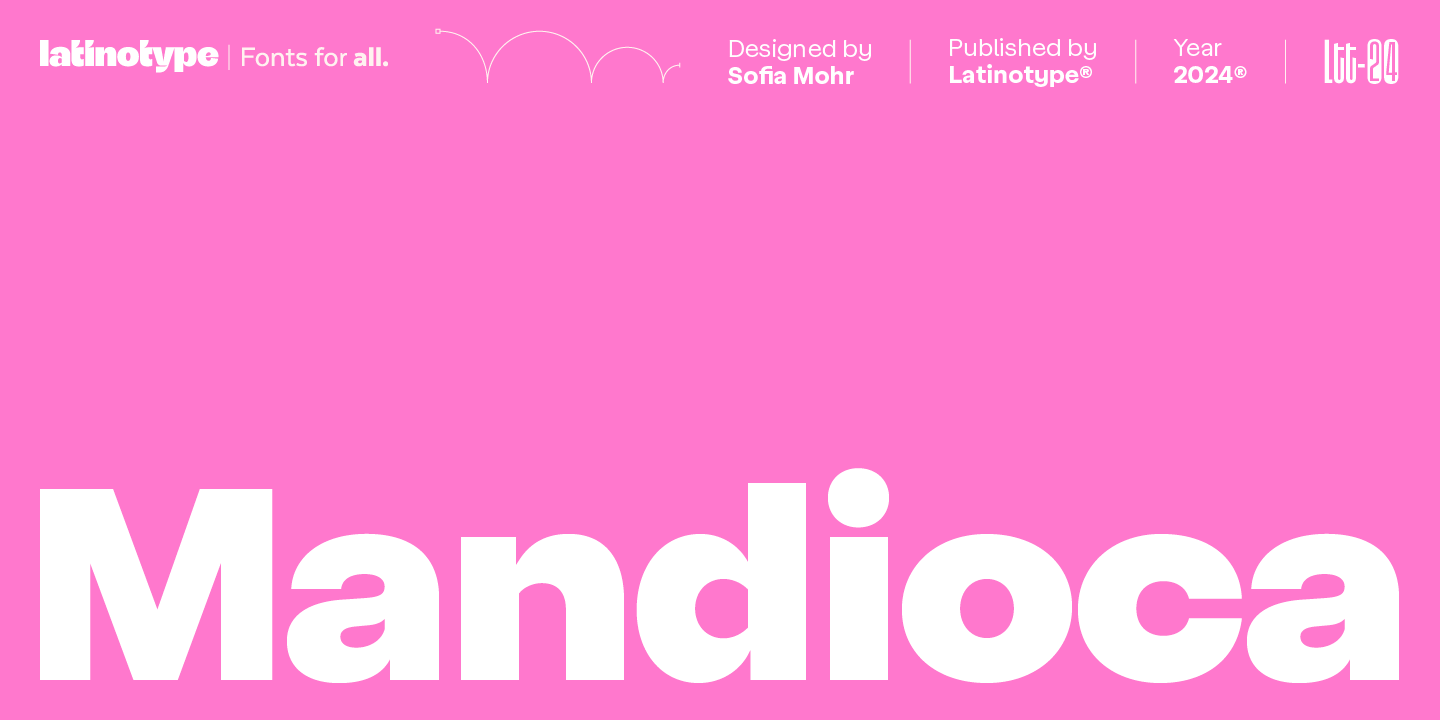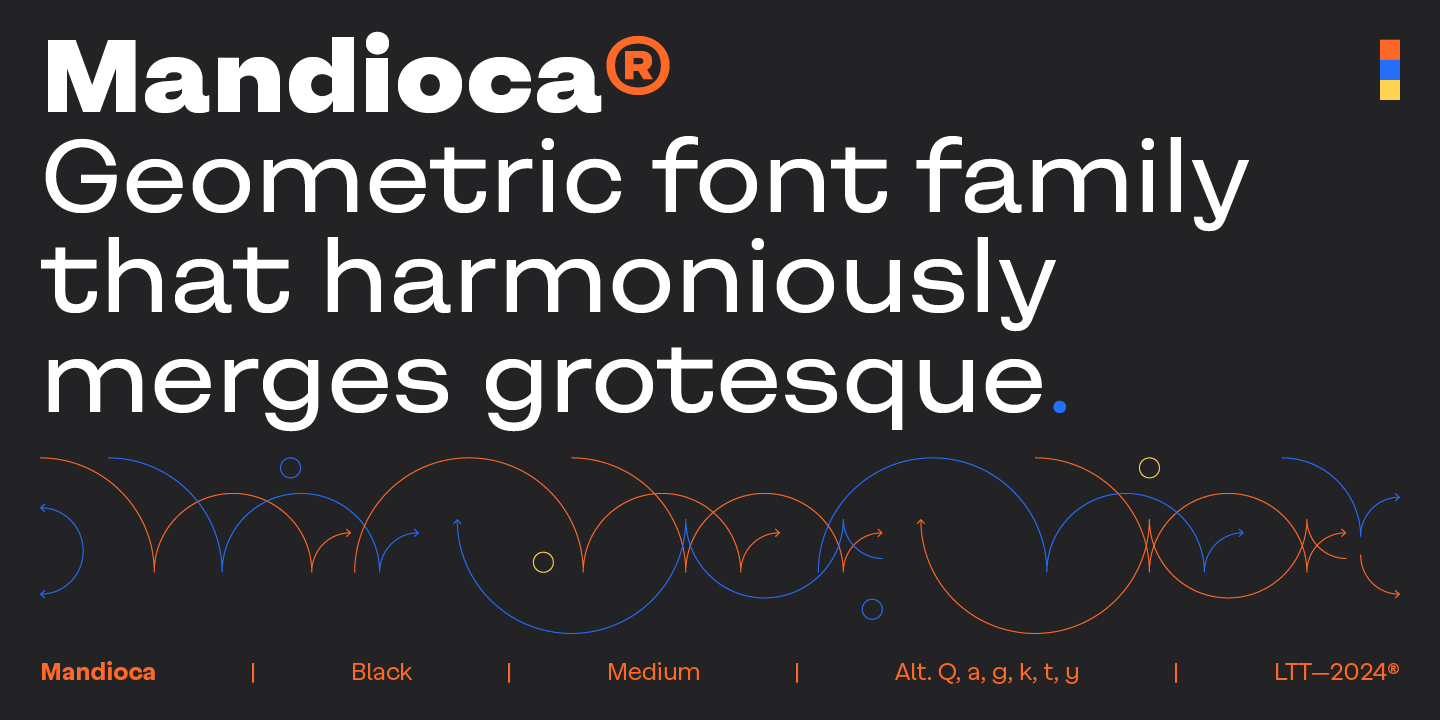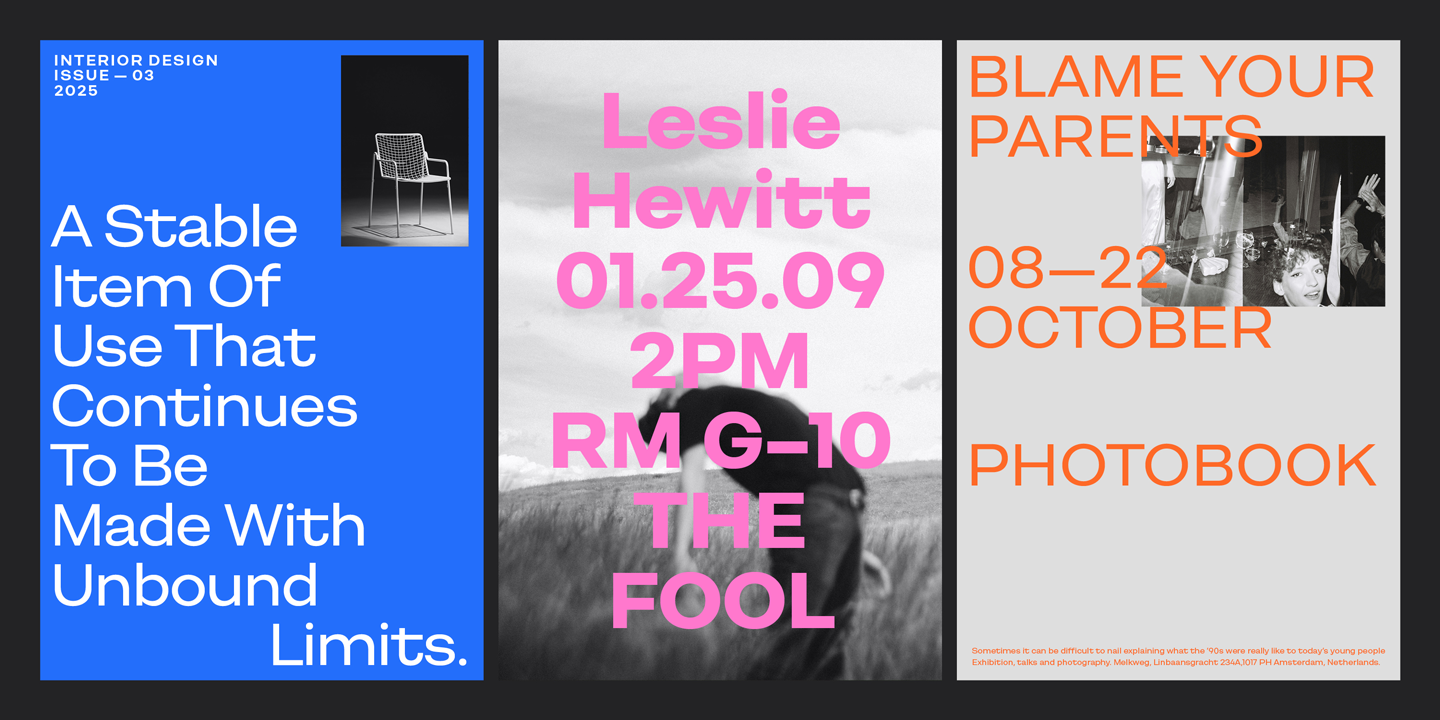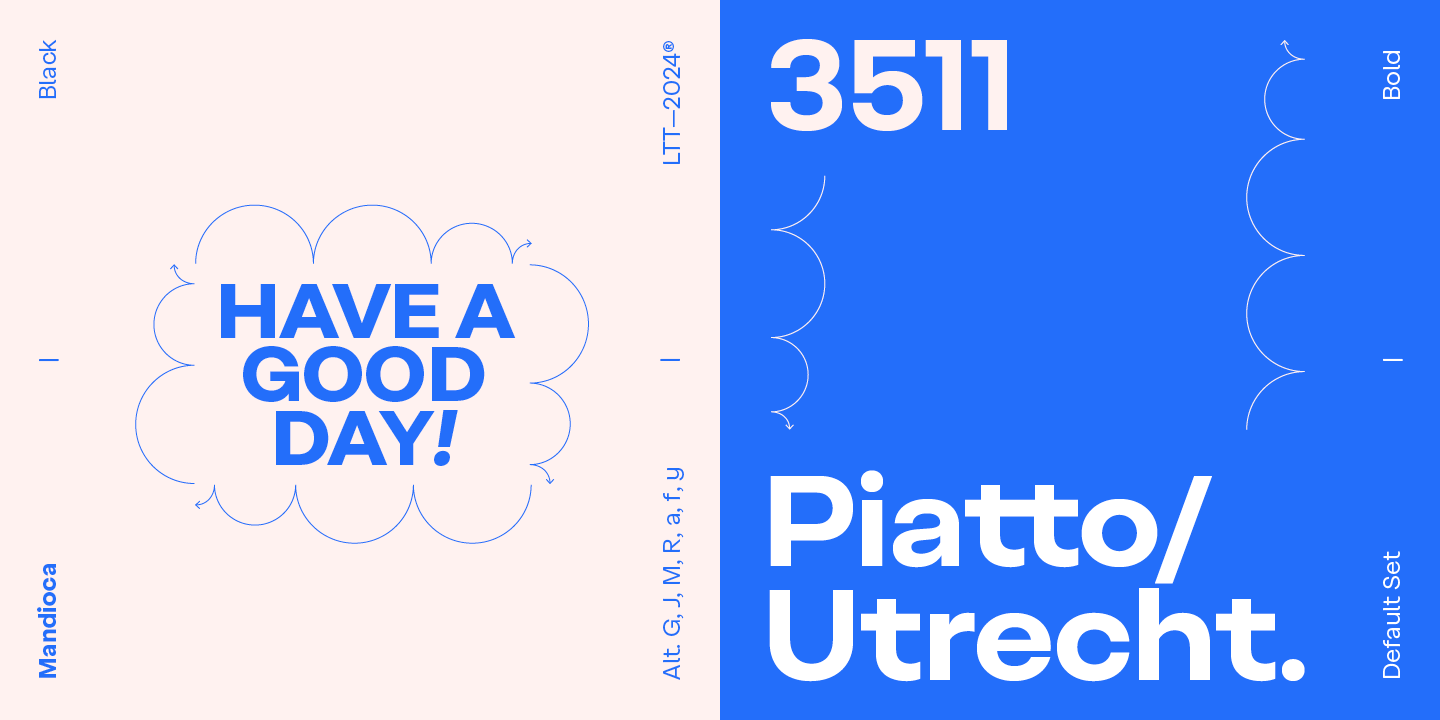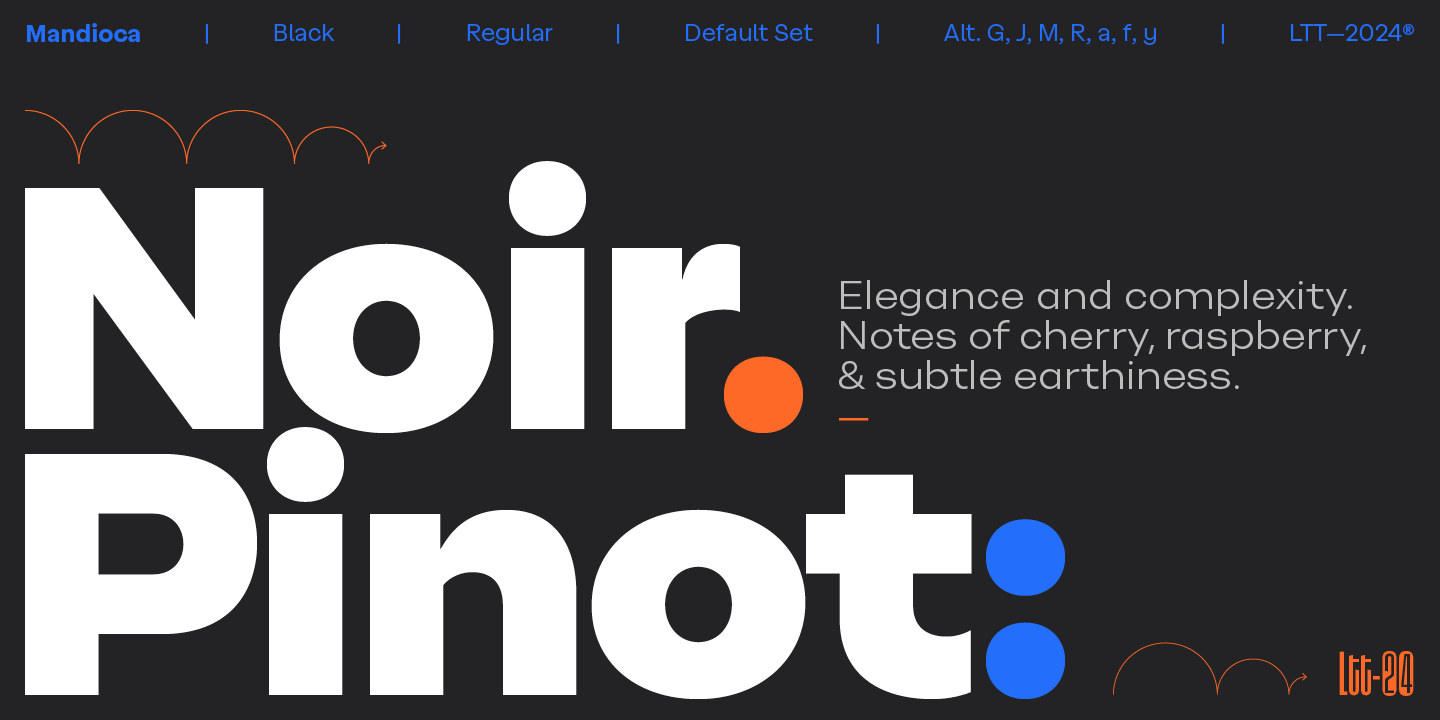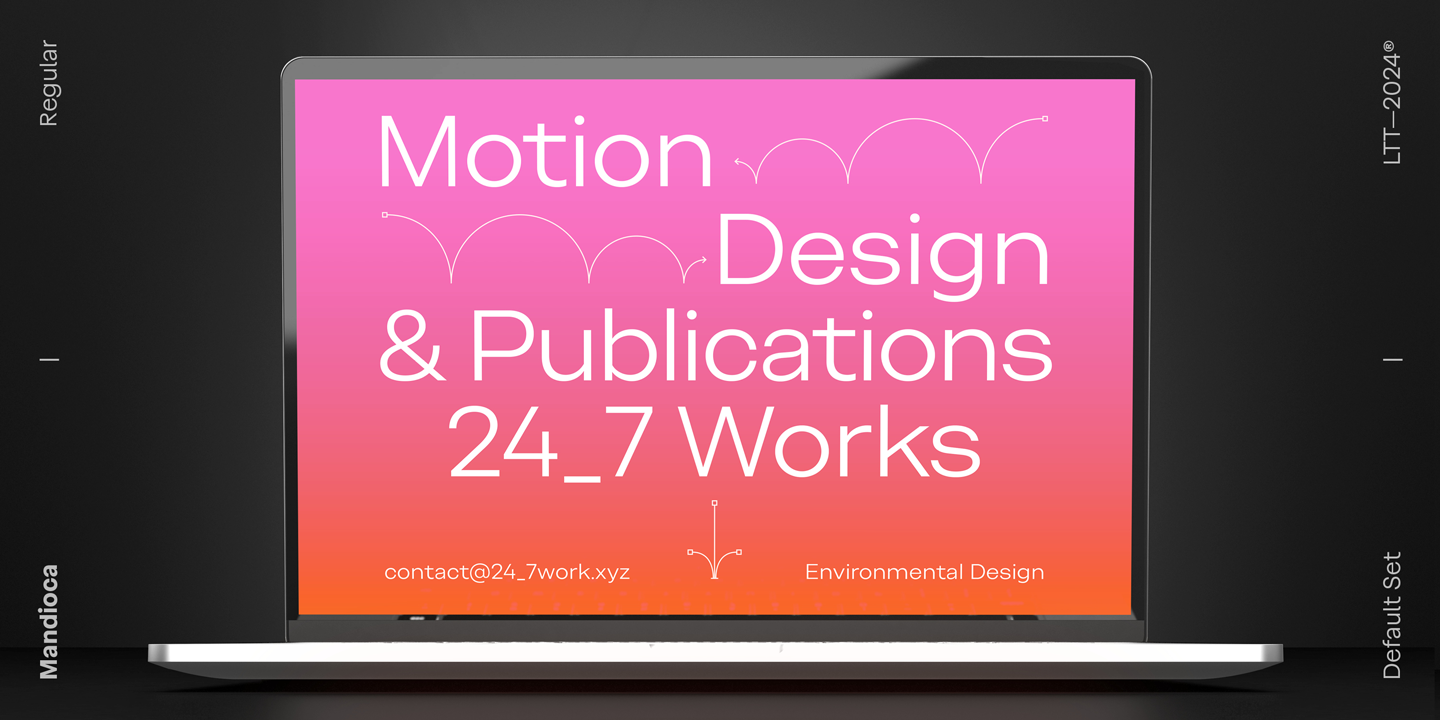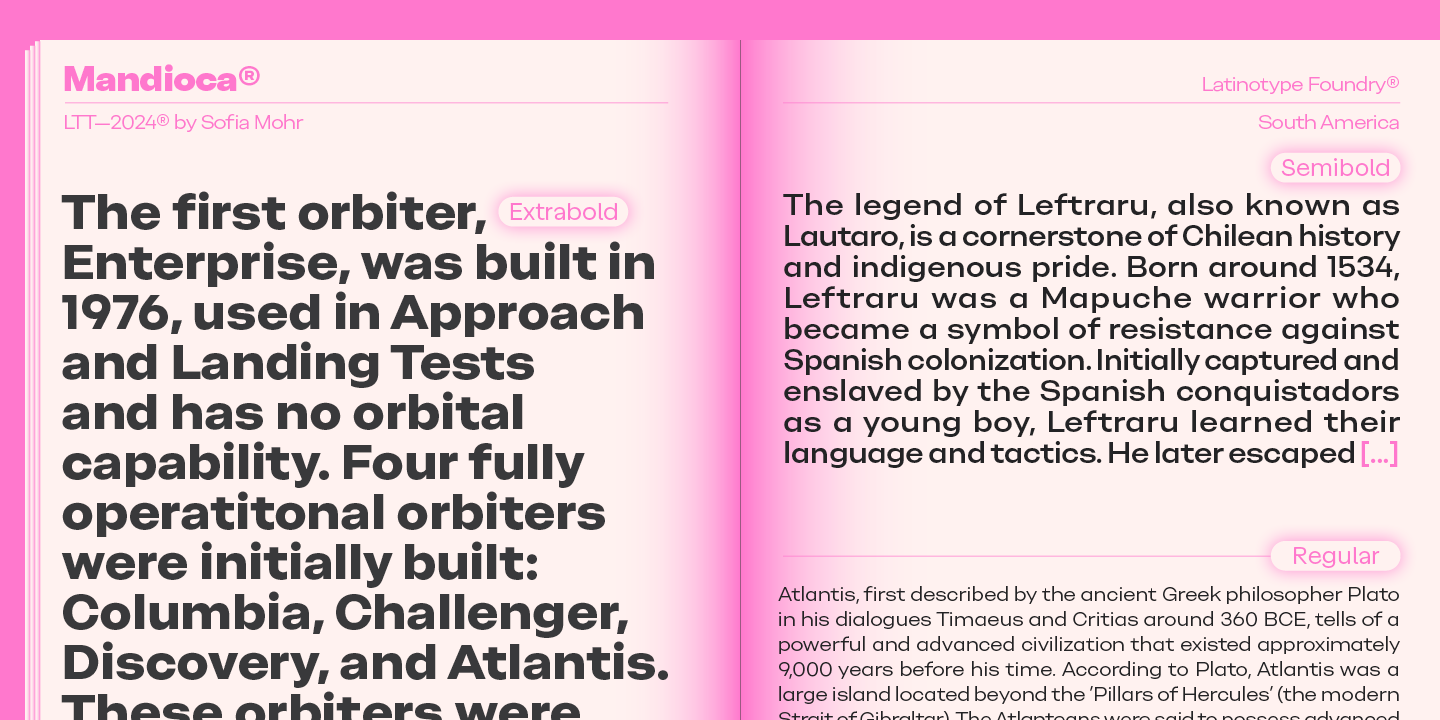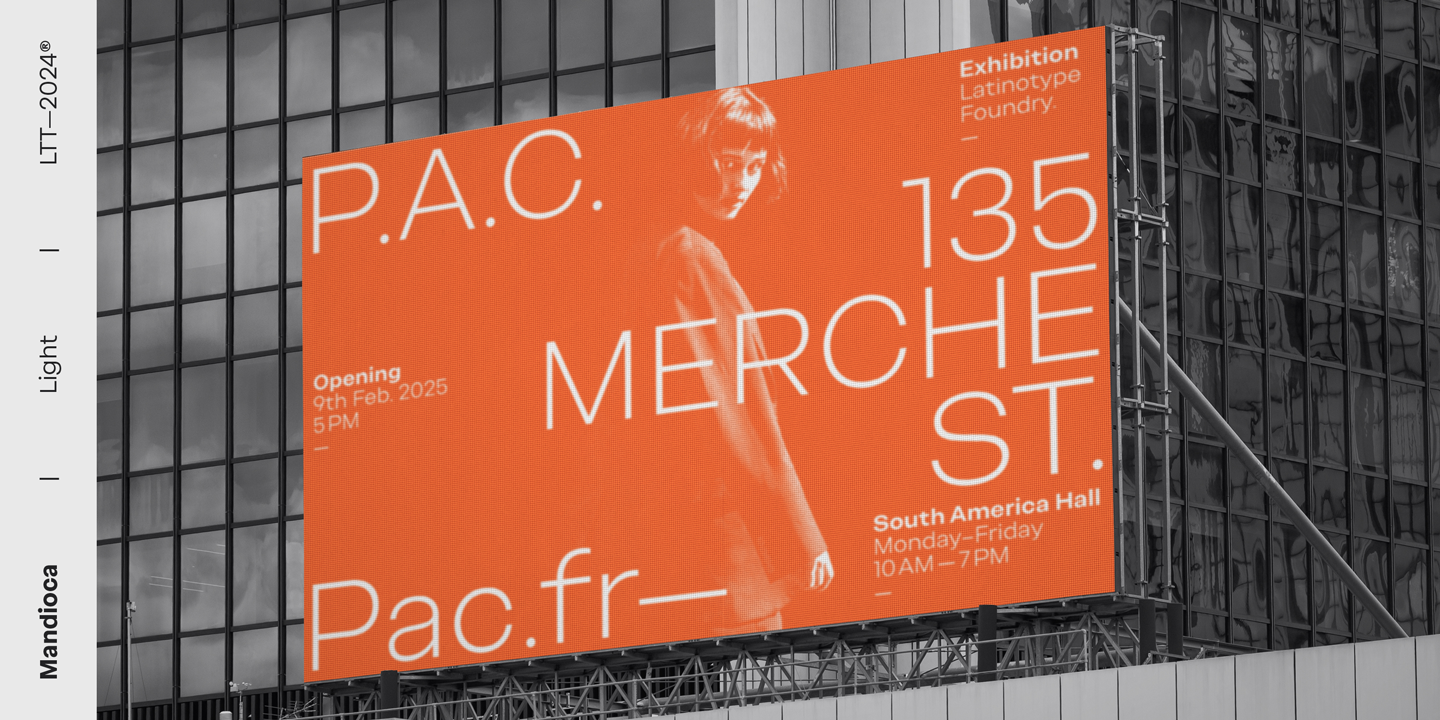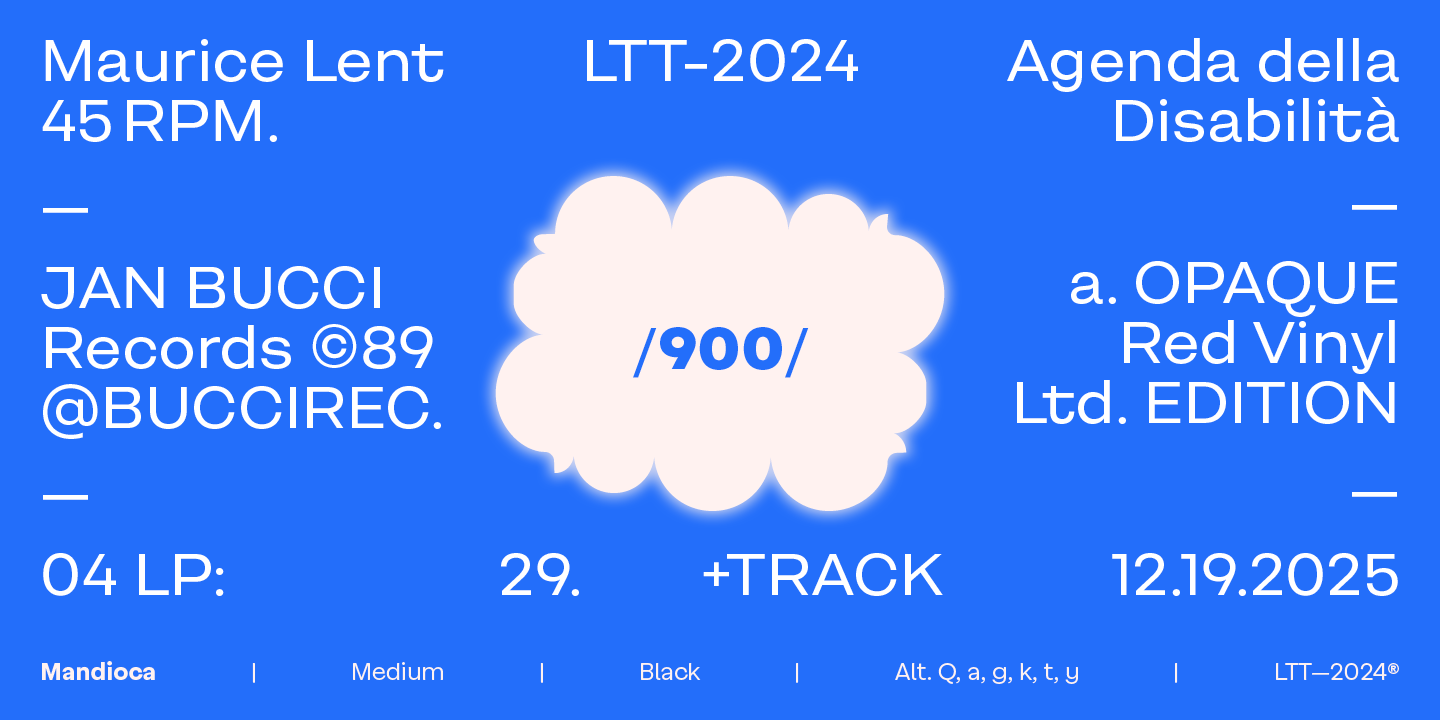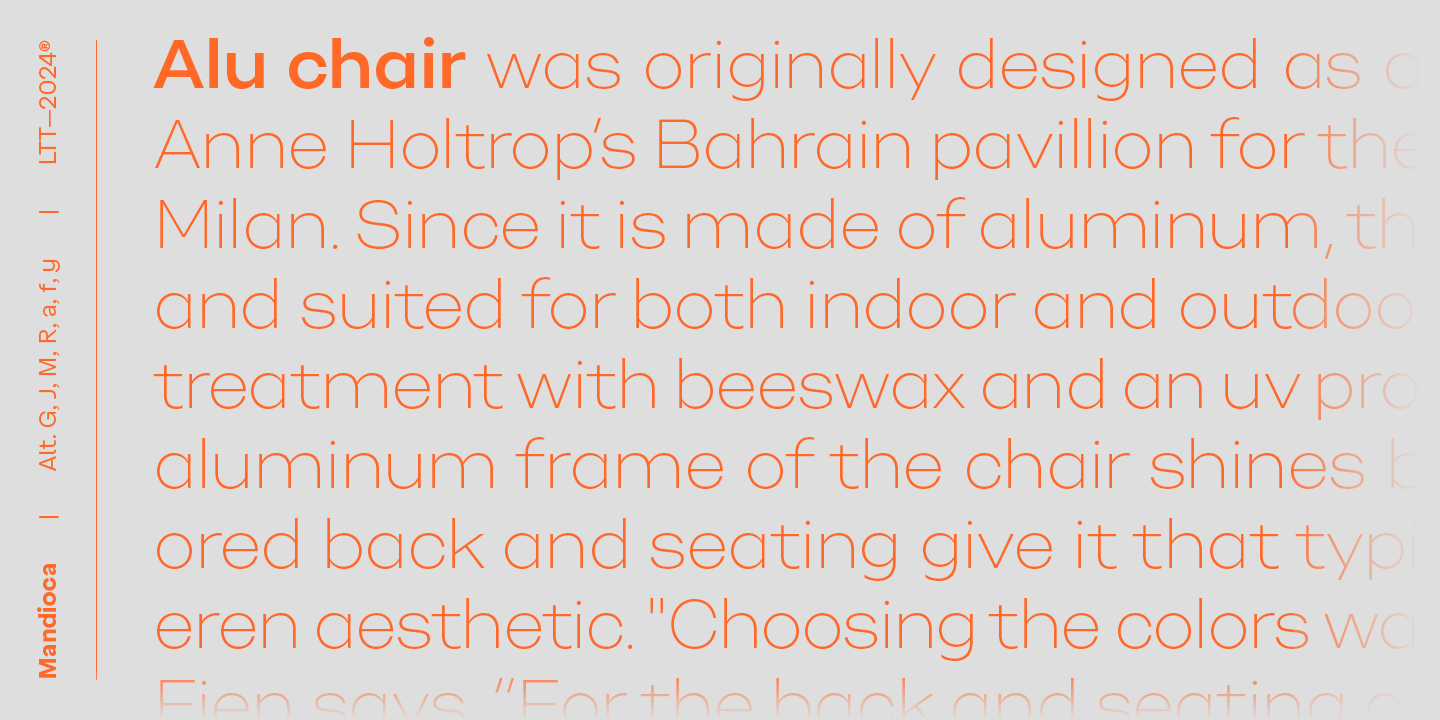
Mandioca (18 fonts)
Its wide proportions, closed ends with straight cuts, large 'x' height, short ascenders and descenders, and notable modulation in selected areas give it a unique and timeless identity.
Mandioca comes in 18 styles: 9 Roman and 9 Italic, making it a great tool for those looking for a versatile font with a wide range of weights, strong character and legibility.